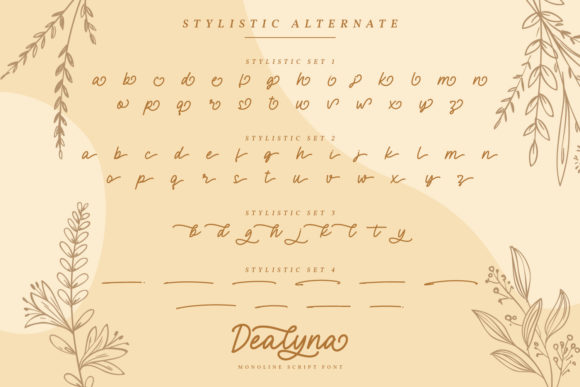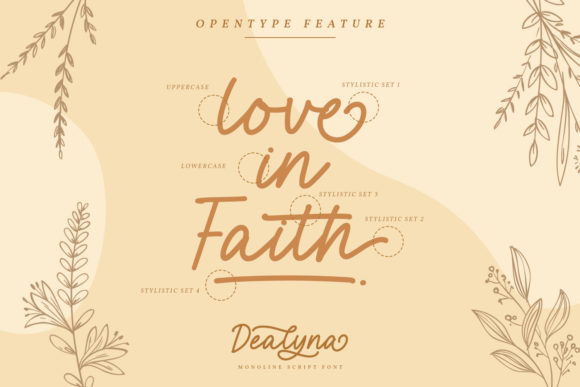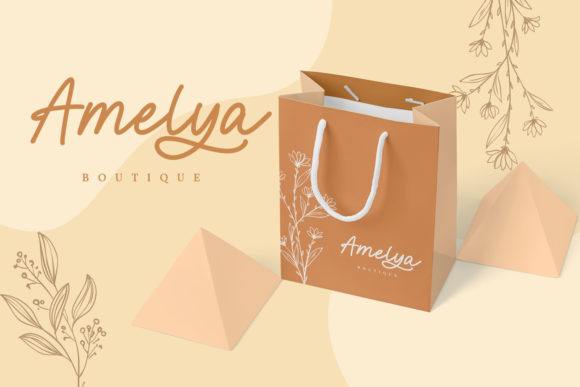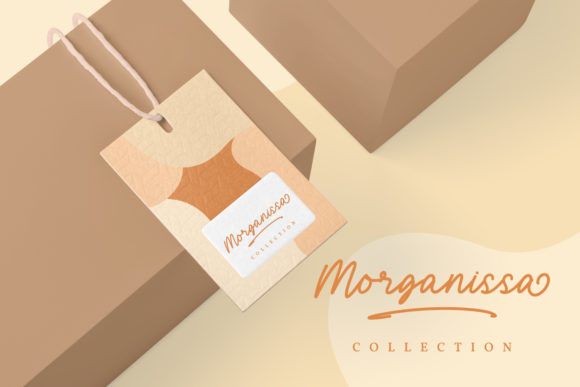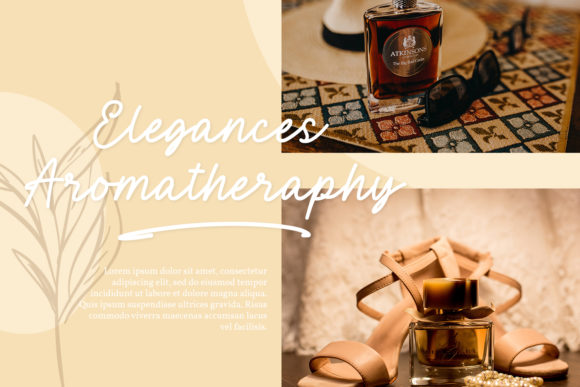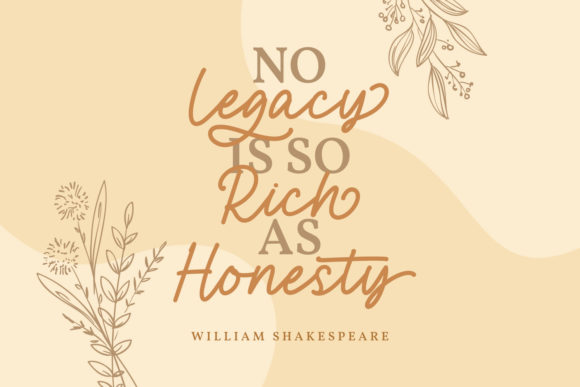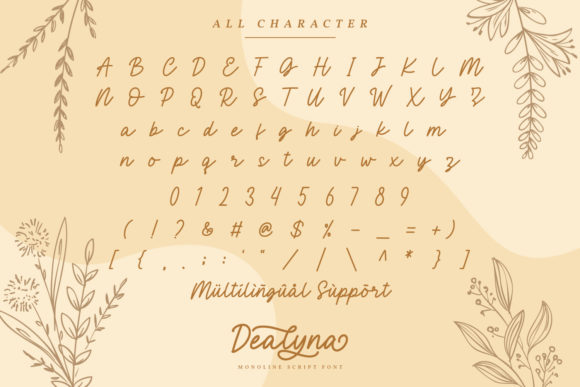
Dealyna Font
About Dealyna Font
Dealyna sounds like a truly enchanting and versatile handwritten font, perfect for bringing a touch of magic and uniqueness to your designs. Let’s explore some exciting ways you can use Dealyna to create stunning and creative projects:
1. Whimsical Wedding Invitations: Design enchanting and fairy-tale-like wedding invitations using Dealyna’s magical and distinct letterforms to create a dreamy atmosphere.
2. Fantasy Book Covers: Use Dealyna to design captivating book covers for fantasy novels, adding a touch of mystique and allure to the story.
3. Magical Greeting Cards: Create charming and magical greeting cards for various occasions, using Dealyna’s lovely style to spread joy and warmth.
4. Personalized Stationery: Design personalized stationery sets featuring Dealyna’s beautiful glyphs for a unique and memorable touch.
5. Enchanted Art Prints: Create enchanting art prints with Dealyna’s varying baseline and smooth lines, perfect for home decor or gifting.
6. Fantasy-Themed Logos: Use Dealyna to design logos for businesses or events with a fantasy or magical theme, adding a touch of wonder to their branding.
7. Fairy-Tale Quotes: Design stunning graphics featuring inspiring fairy-tale quotes or motivational messages, using Dealyna’s stunning alternates.
8. Magical Party Invitations: Craft whimsical and enchanting invitations for children’s parties or themed events using Dealyna’s playful style.
9. Fantasy-Themed Packaging: Apply Dealyna to product packaging for fantasy-inspired items, bringing a magical vibe to the product presentation.
10. Fairy Garden Signage: Create charming signs or plaques for fairy gardens or outdoor displays, using Dealyna’s magical and distinct lettering.
11. Mythical Creature Illustrations: Use Dealyna’s smooth lines and lovely style to illustrate mythical creatures for posters or artwork.
12. Fantasy Map Lettering: Apply Dealyna to create fantasy-style map lettering for tabletop games, adventure books, or thematic designs.
13. Enchanted Digital Scrapbooking: Use Dealyna to create magical digital scrapbooking elements for capturing precious memories.
14. Fantasy-Themed Party Decorations: Design captivating party decorations featuring Dealyna’s lovely glyphs for an enchanting celebration.
15. Mythical Character Names: Create personalized mythical character names with Dealyna’s stunning alternates for role-playing games or storytelling.
16. Whimsical Product Labels: Apply Dealyna to design whimsical product labels for handmade goods, adding a touch of magic to the branding.
17. Fairy-Tale Social Media Posts: Craft charming social media graphics using Dealyna’s varying baseline to engage and delight your audience.
18. Mystical Tattoo Designs: Use Dealyna’s elegant style to design magical and meaningful tattoo designs.
19. Storybook Illustrations: Create enchanting storybook illustrations with Dealyna’s flowing and smooth lettering for a captivating reading experience.
20. Fairy-Tale Wedding Menus: Design elegant wedding menus with Dealyna for a romantic and whimsical touch to the dining experience.
In summary, Dealyna is an enchanting and distinct handwritten font that offers endless creative possibilities. From fairy-tale-inspired wedding invitations to mystical book covers, Dealyna adds a touch of magic and allure to any design. Embrace the versatility and loveliness of Dealyna, and let it ignite your imagination to create truly enchanting and creative projects. The magic is in your hands!